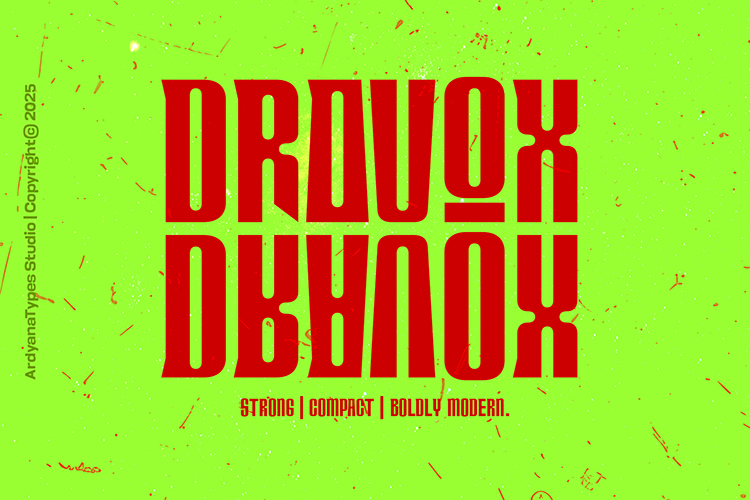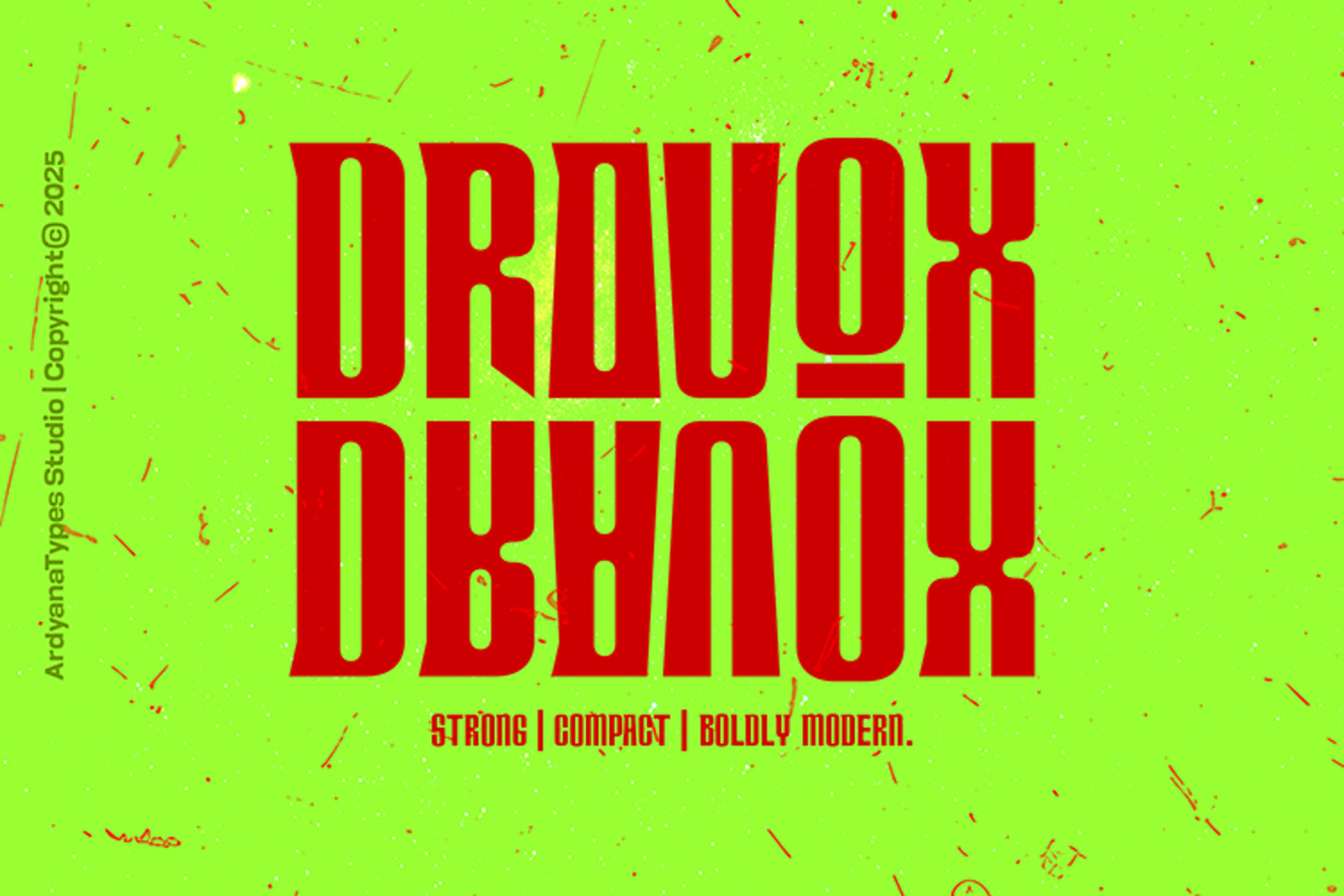
Dravox is a modern display typeface that blends geometric precision with a sleek futuristic aesthetic. Every curve and edge is crafted with purpose, delivering a strong, confident, and professional look. Designed for creative minds who want to make bold visual statements, Dravox fits perfectly in logos, posters, product packaging, and branding materials that demand attention.
With its balanced proportions and powerful presence, Dravox Typeface radiates confidence and innovation. The futuristic touch adds a sense of technology and progress, making it an excellent choice for brands or projects that aim to appear visionary, modern, and forward-thinking.
From tech startups to sci-fi movie posters, Dravox adapts effortlessly to a wide range of design applications. Its bold lines and clean geometry create an aesthetic that is both sophisticated and striking — perfect for anyone who wants their typography to speak with authority.
Use Dravox to transform your design into a statement of strength and modernity — a typeface that doesn’t just display words, but defines visual identity.